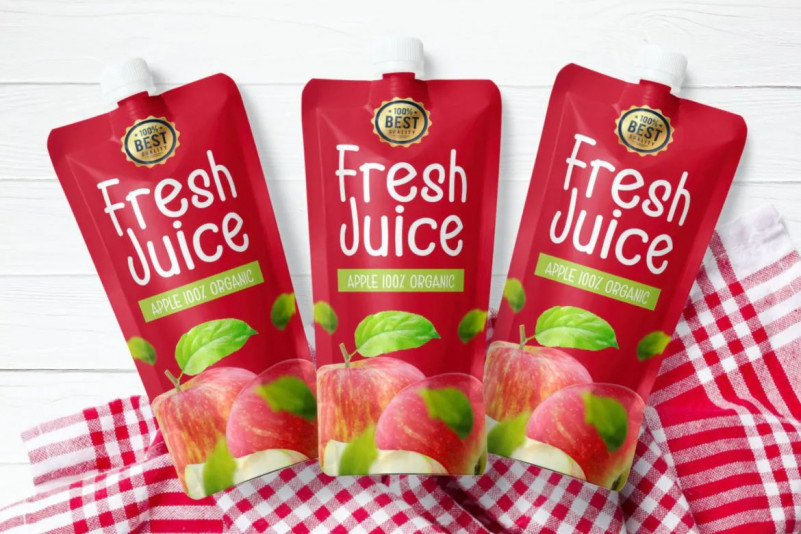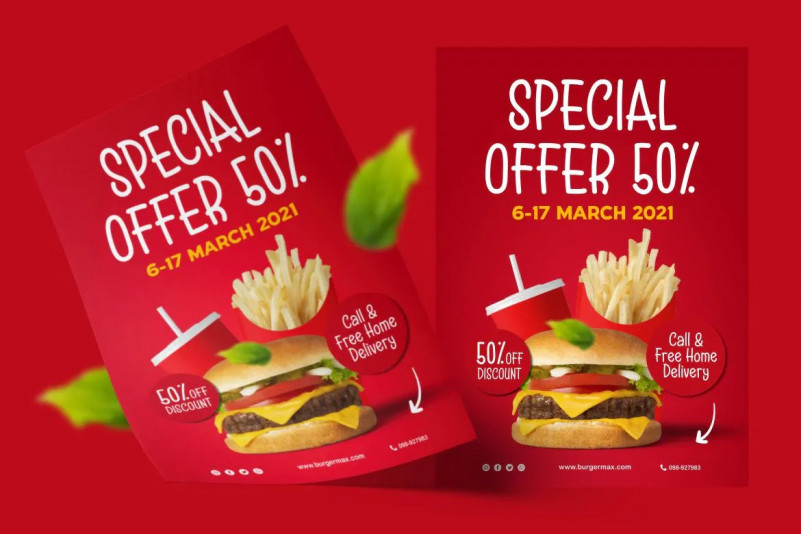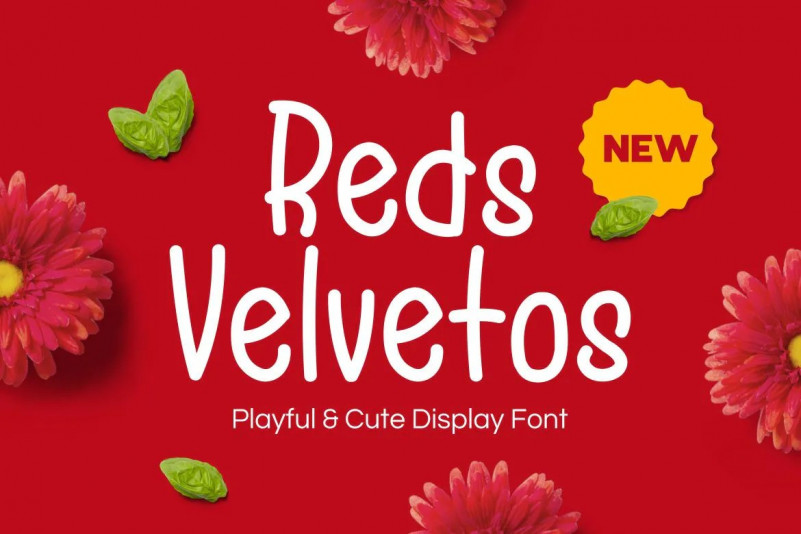
Reds Velvetos Font
Pleased to introduce you to Red Velvetos new playful and cute font! This is a cute kids font that would be perfect for packaging, mug, books, greeting cards, toys, posters, baby clothing, picture books or anything that requires a fun and happy look!OTF | TTF